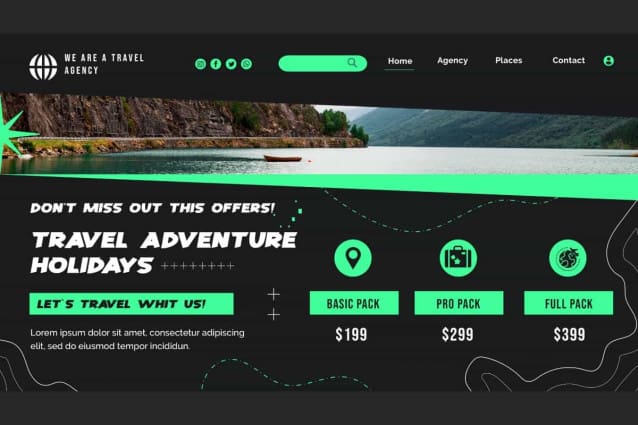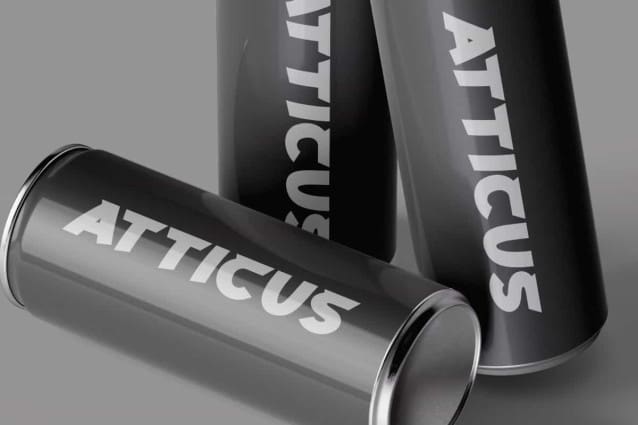
Shared Arena Font
Shared Arena Font is a racing rugged display font with a bold and powerful style. This font is also versatile and easy to read in both digital and print forms as it adds a dynamic touch to your designs. Suitable for many designs, such as brand image, custom design, invitation, label, poster, product packaging, quotes, screen printing, signage, website page, and more!
Shared Arena Font includes full set of ALL CAPS for Uppercase and Lowercase Basic Characters, Numerals, Punctuation and Symbol. This awesome font can make your design more attractive and will be suitable for many industries, such as accessories, advertising, automotive, cafes, event or festival, fashion, furniture, game, movie, photography, sports, etc.